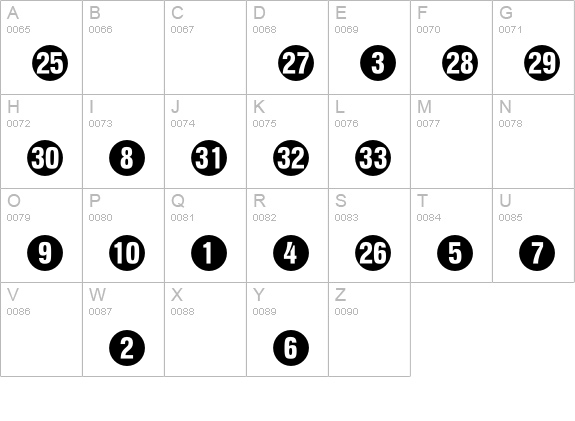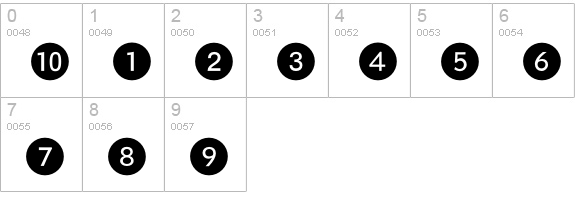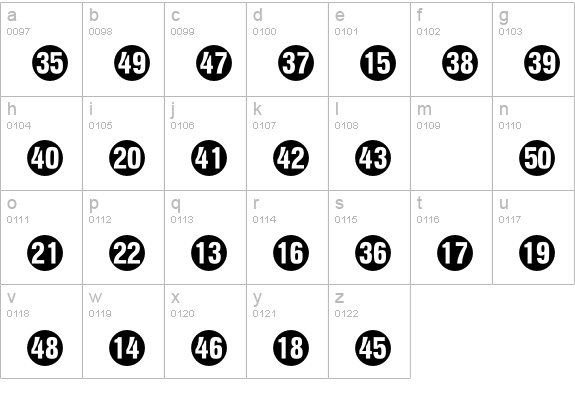
NumericsP04 font is a sleek and modern typeface that exudes professionalism and sophistication. With its clean lines and geometric shapes, NumericsP04 is perfect for adding a contemporary touch to any design project. Whether you're creating a website, a poster, or a logo, this font will make your text stand out with its sharp and crisp appearance. One of the best things about NumericsP04 font is that it is available for free download at FontsMarket.com. This means that you can easily access this stylish font without any cost, making it an excellent choice for budget-conscious designers looking to elevate their work. Enhance your design projects with NumericsP04 font and enjoy the versatility and elegance it brings to your typography. Download it for free today and start using this eye-catching font in your creations.